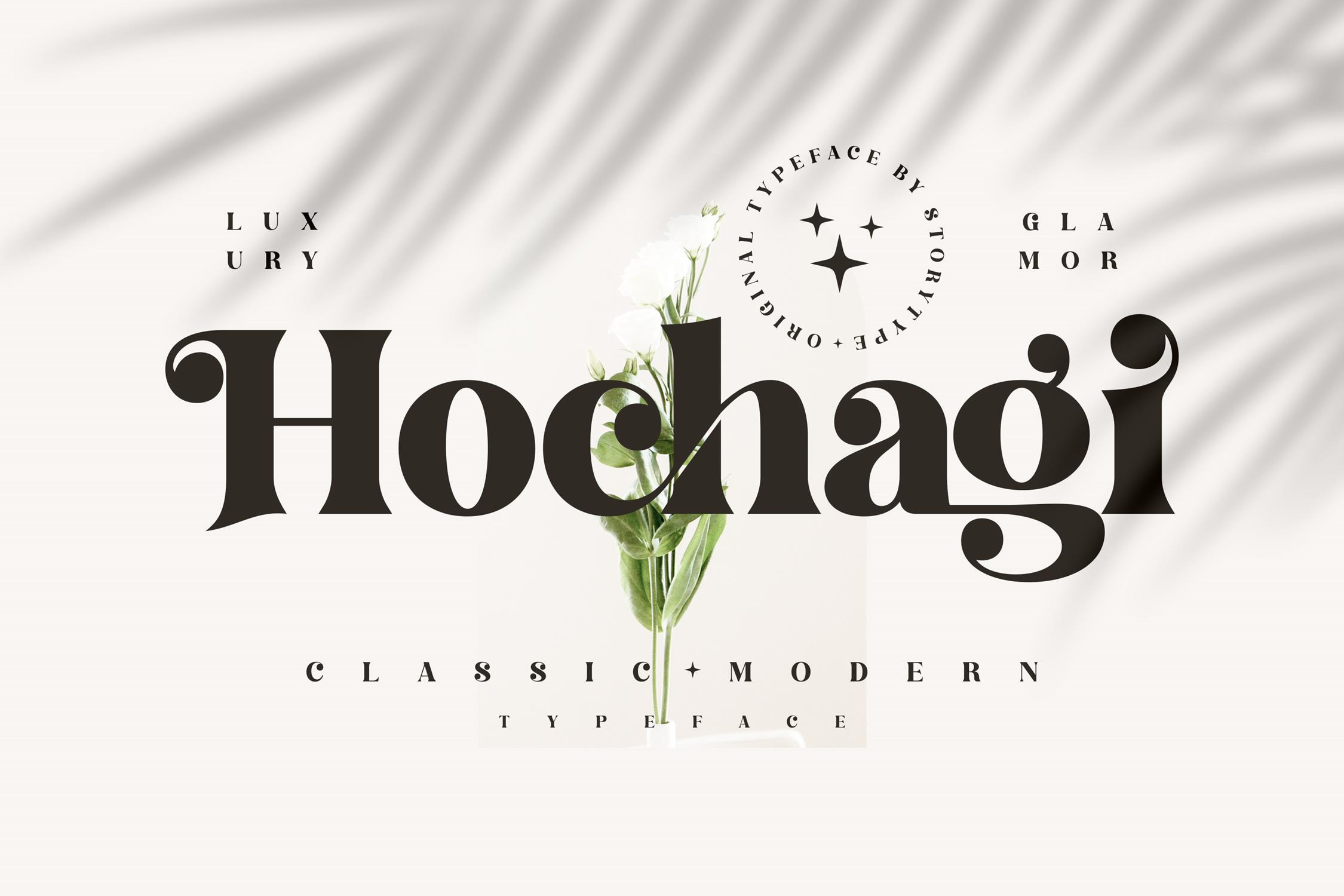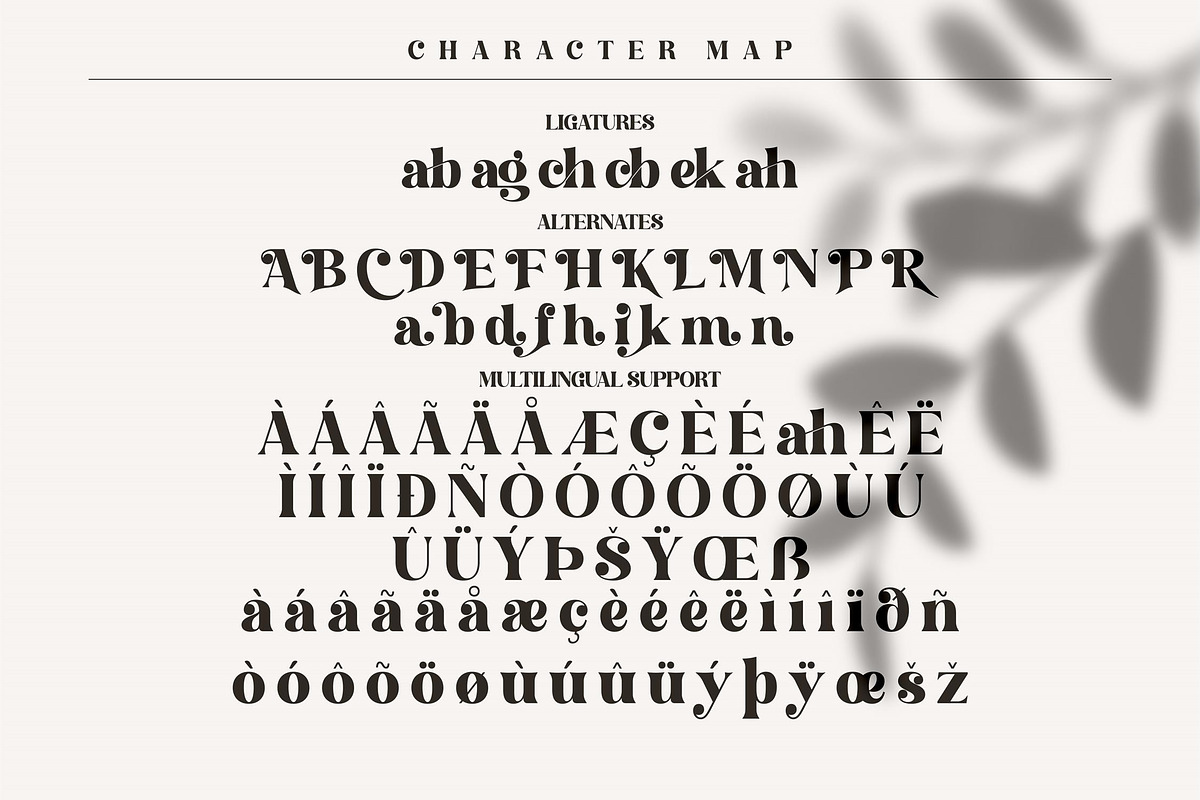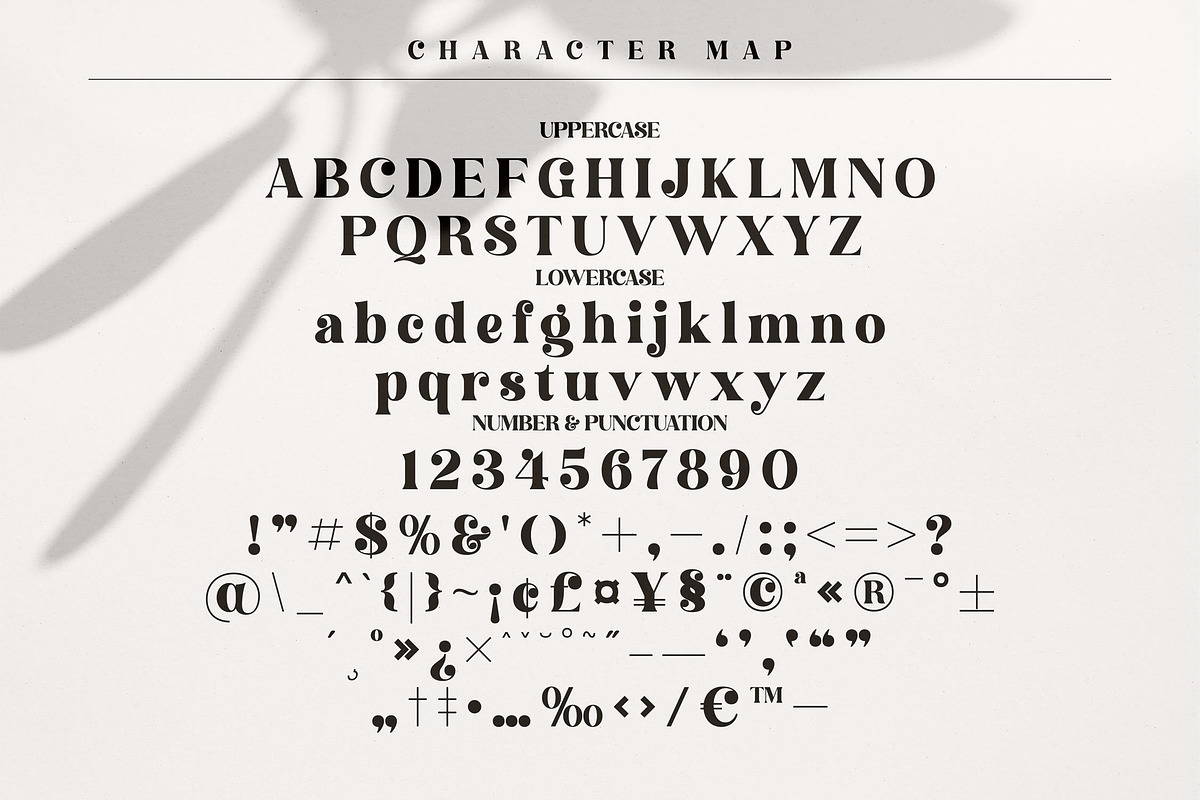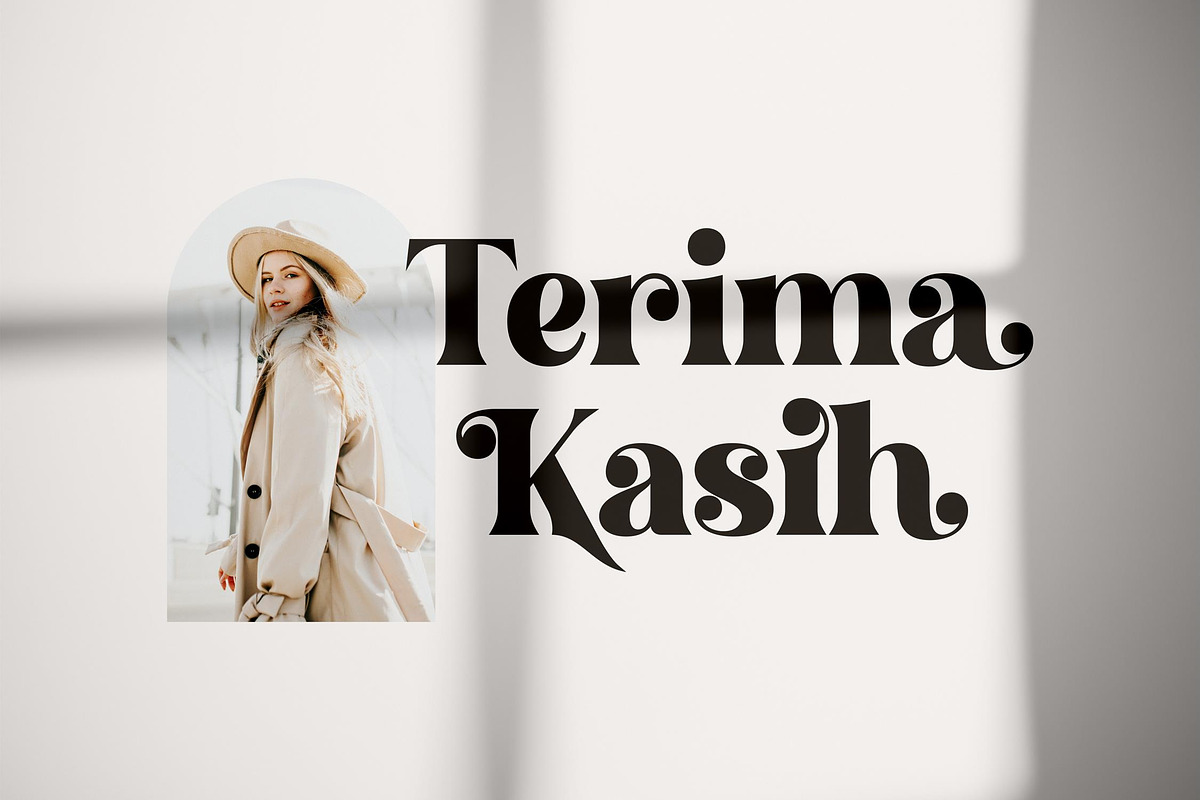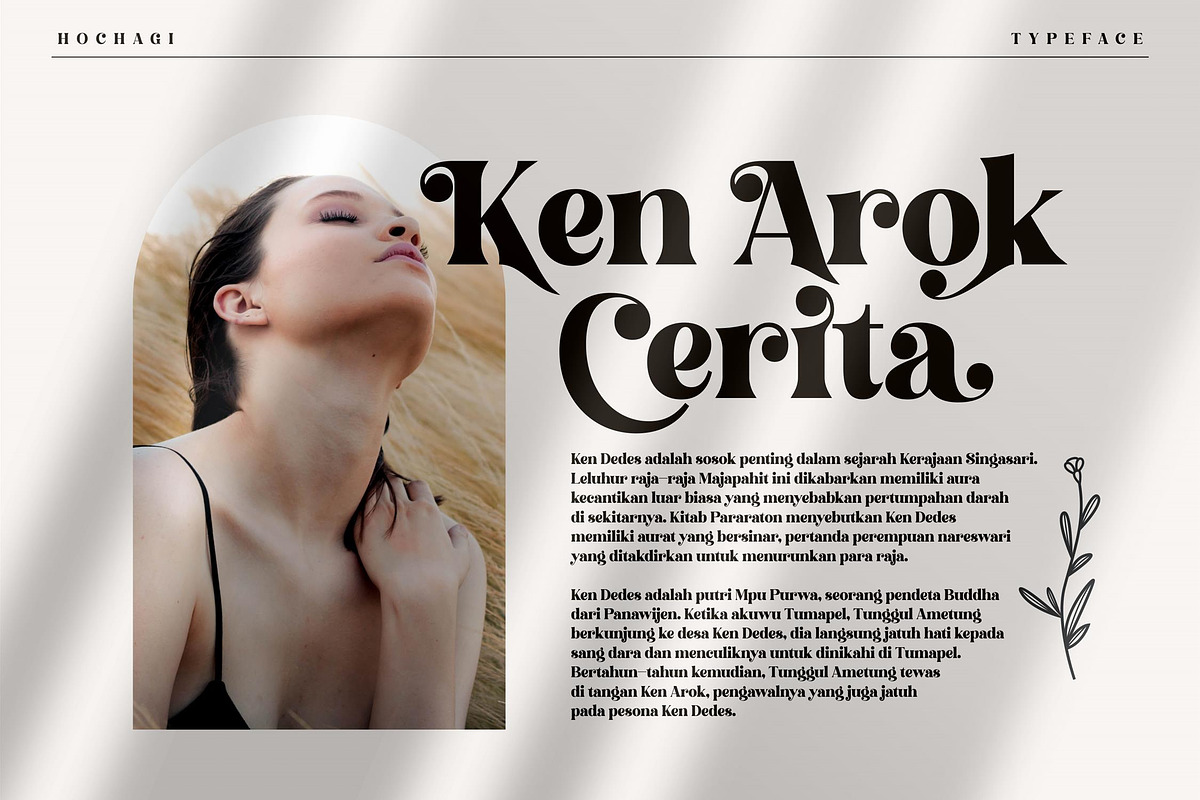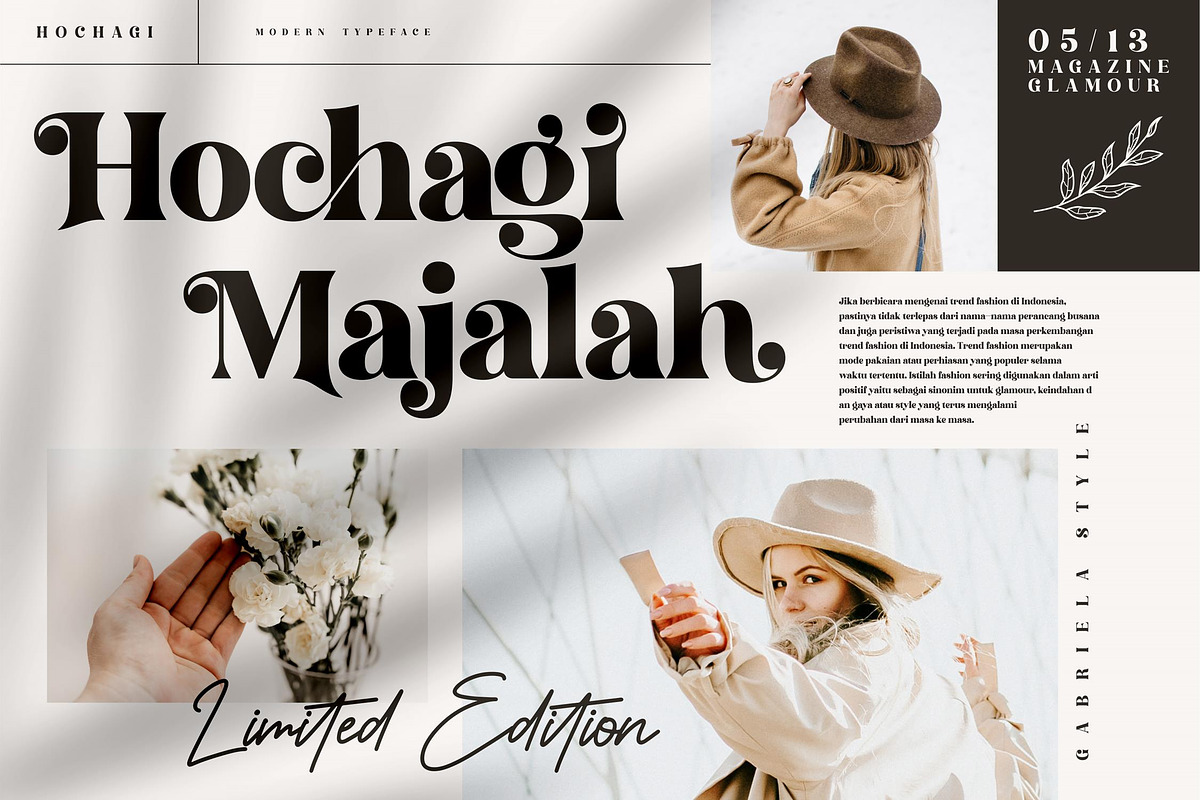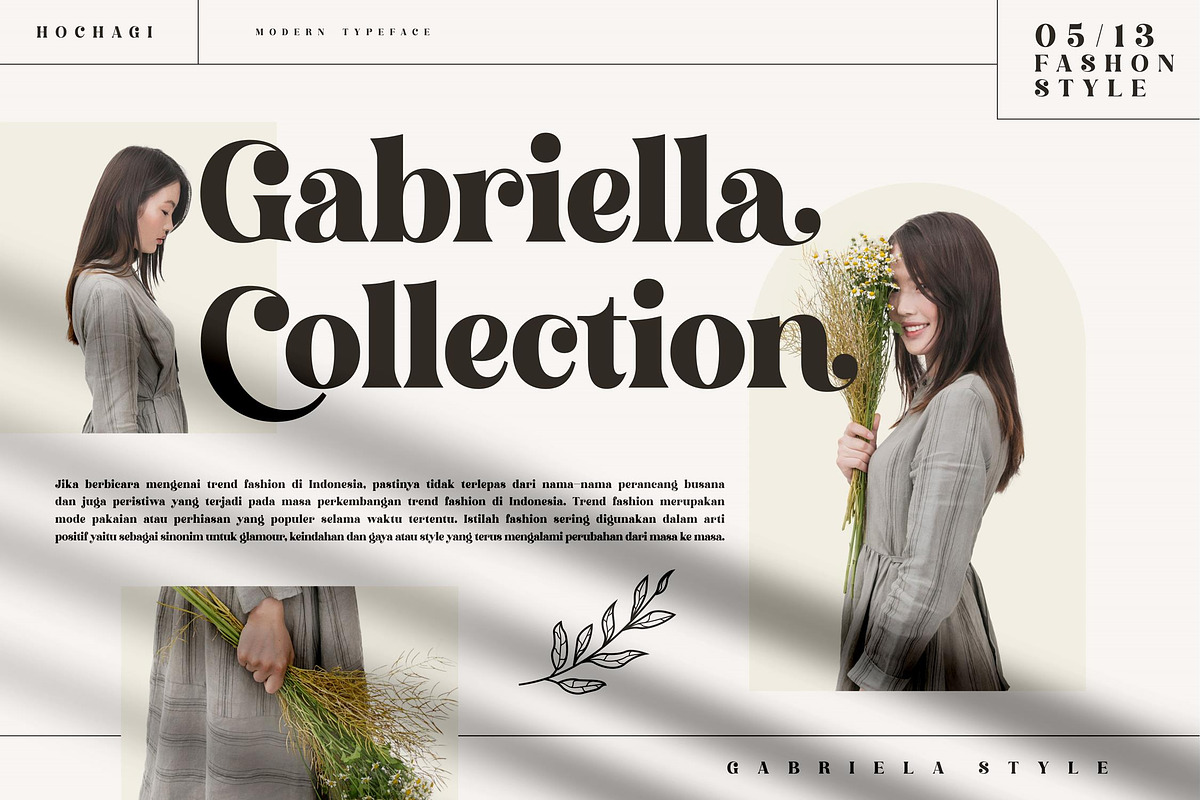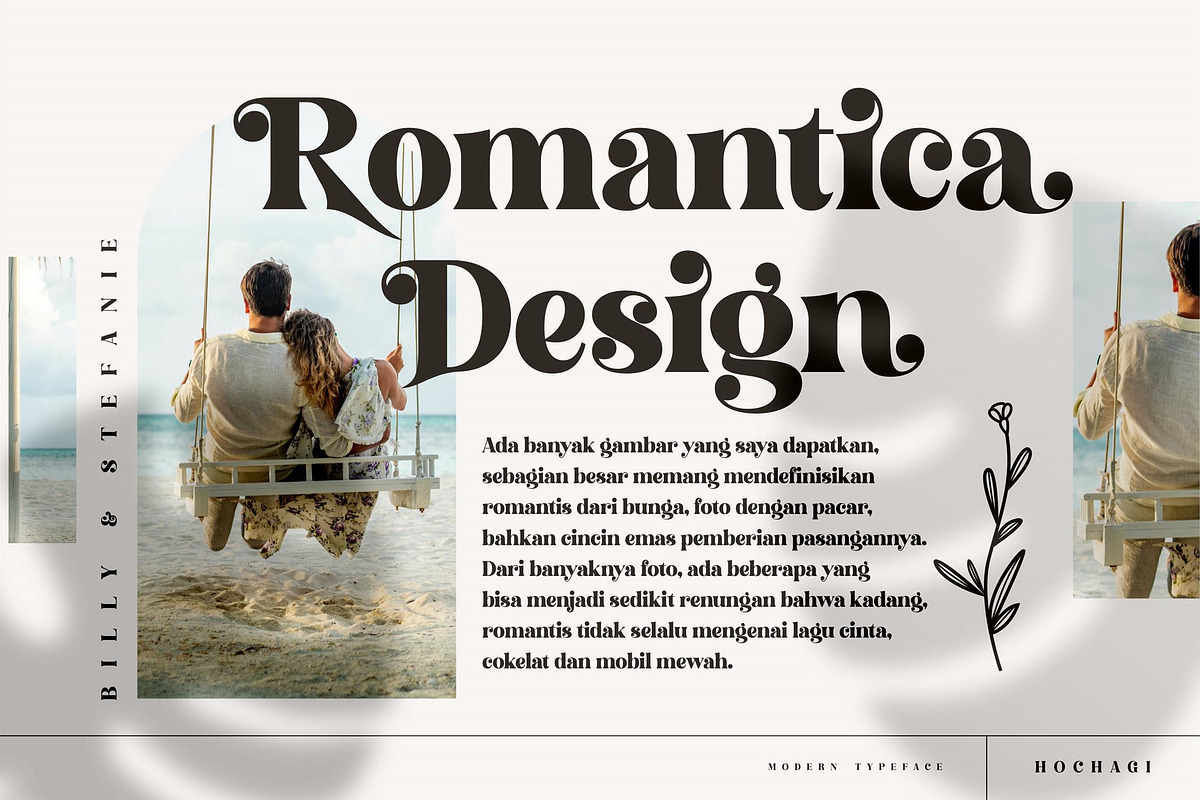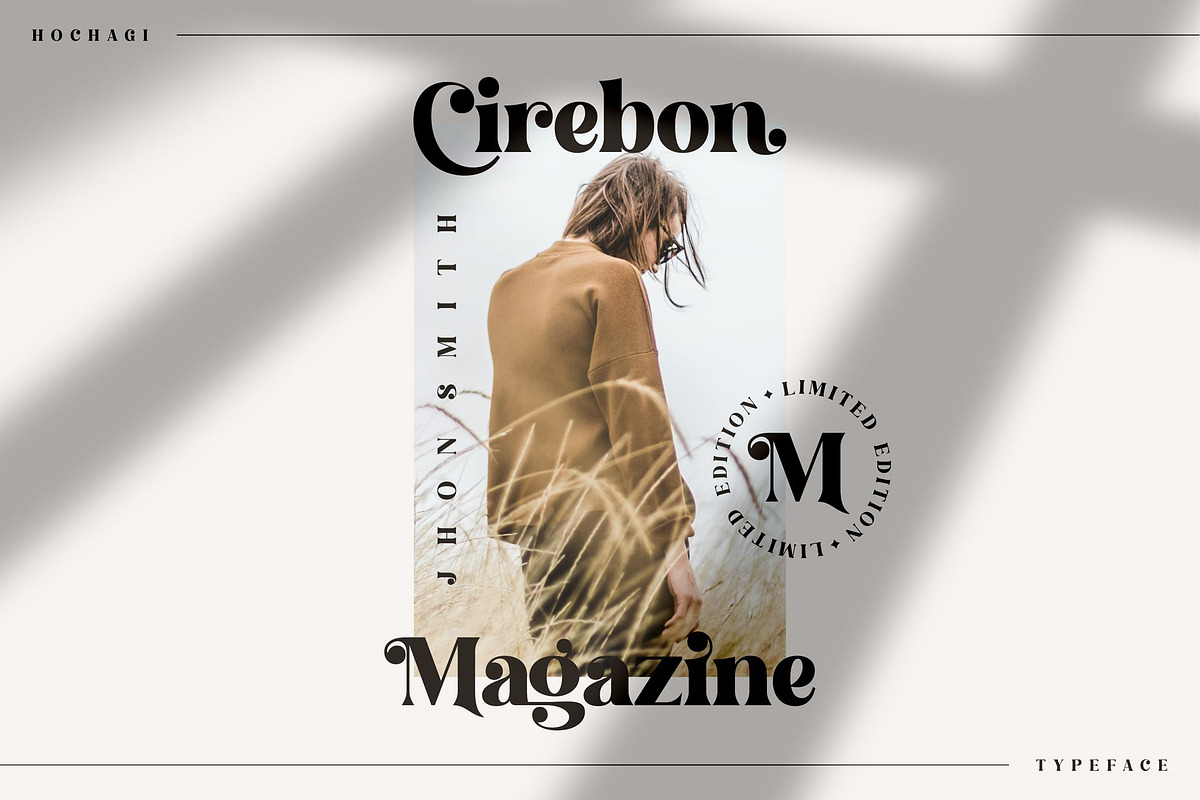
Hochagi Classy Serif Font
Proudly present Hochagi Typeface, created by StoryType, A serif modern bold typeface that has own unique style & modern look.
This typeface is perfect for an elegant & luxury logo, book or movie title design, fashion brand, magazine, clothes, lettering, quotes, and so much more.